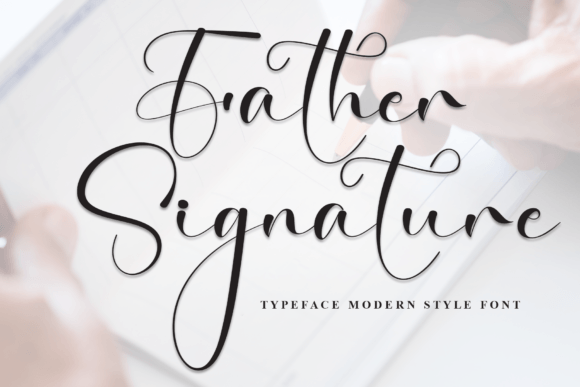
The Signature Touch: Elevating Designs with Father Signature Font
Have you ever struggled to convey the perfect blend of elegance and personality in your designs? You’re not alone. We’ve all been there, staring at a blank page, searching for that special something to make our creations stand out. For designers, finding the right font can be a game-changer – and that’s exactly where the Father Signature Font comes in.
This beautiful handwritten font is designed to mimic the personal touch of a handwritten signature, adding a sophisticated and charming element to any project. With its smooth, flowing lines, it’s perfect for logos, invitations, and personal notes that demand a touch of whimsy and sophistication.
For designers, the Father Signature Font is a valuable asset that can elevate their work to the next level. Its versatility and unique charm make it an excellent choice for a wide range of projects, from wedding invitations to branding materials.
Father Signature Font Key Features
- Font Family: Father Signature Font, a unique, handwritten font designed to mimic a father’s signature.
- Unique Characteristics: The font features a natural, cursive style with varying line widths, giving it a personal and emotive feel.
- Character Count: The font contains a comprehensive set of characters, including uppercase and lowercase letters, numbers, and punctuation marks.
Designer Review: Father Signature Font
Overall, I was quite impressed with the Father Signature Font. It’s a beautiful, elegant script font that’s perfect for creating a sophisticated and personalized look. ✨ The font is highly customizable, allowing you to adjust the size, color, and even the texture of the letters to match your brand’s style.
Here are some of the features that I particularly liked:
- Highly customizable, with options for size, color, and texture
- Beautiful, elegant script design
- Perfect for creating a sophisticated and personalized look
- Works well in both digital and print applications
- May not be suitable for bold or loud designs, as it’s quite elegant and refined
- Some users may find the customization options overwhelming, especially for those who are new to font design
- Not suitable for large body text, as it’s best used for headings and titles
Overall, I would highly recommend the Father Signature Font for anyone looking to add a touch of elegance and sophistication to their design. While it may have some limitations, it’s a great option for those who want to create a personalized and refined look.